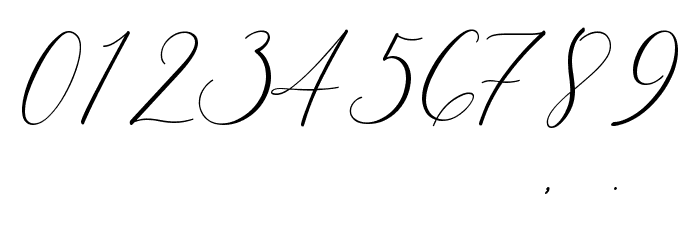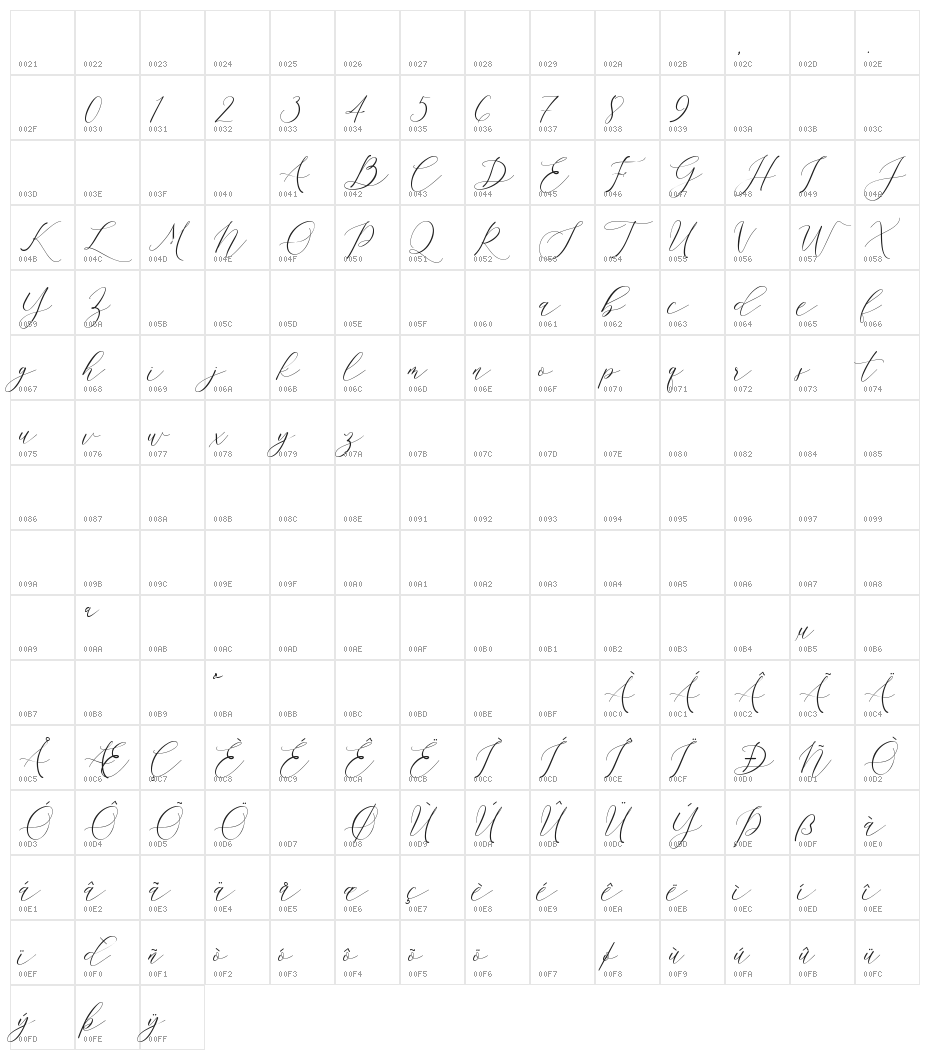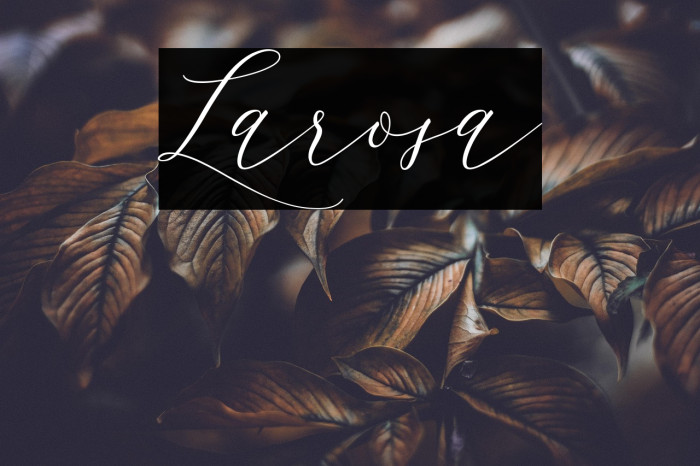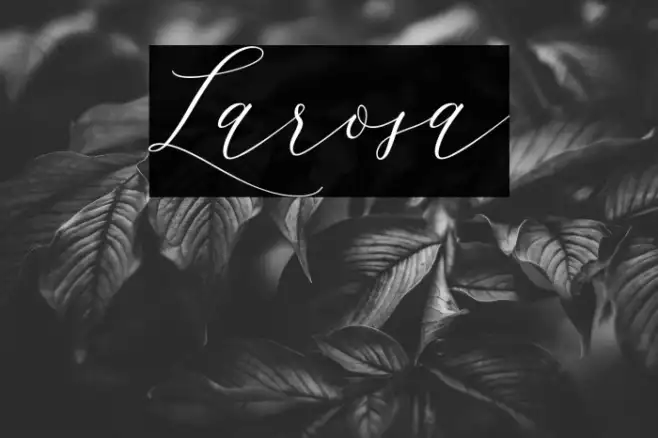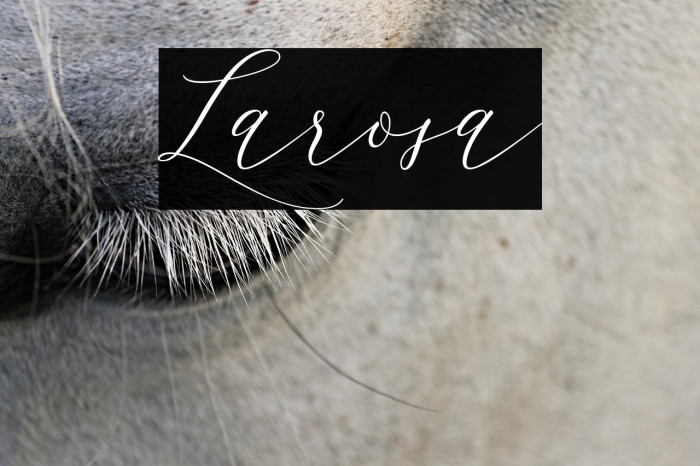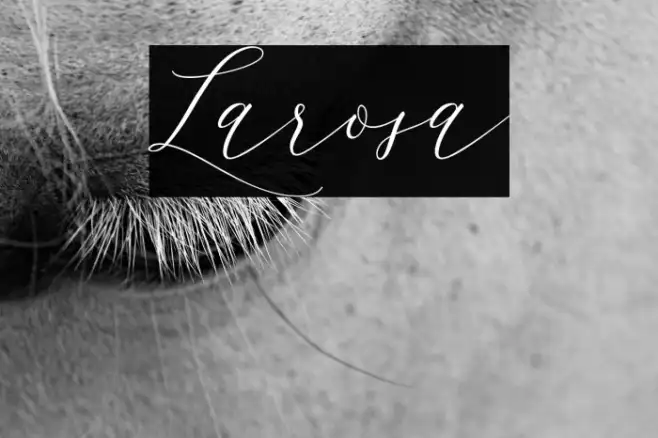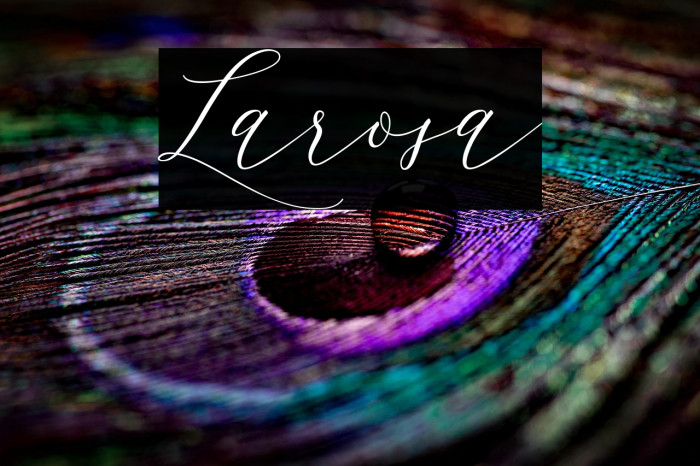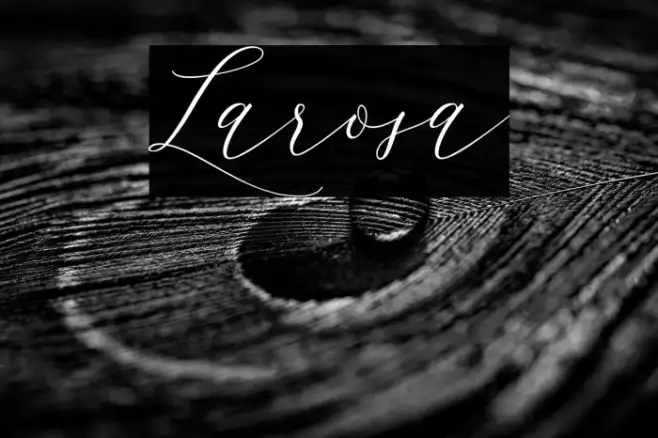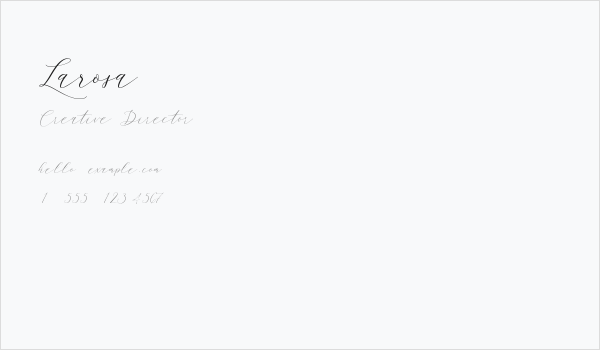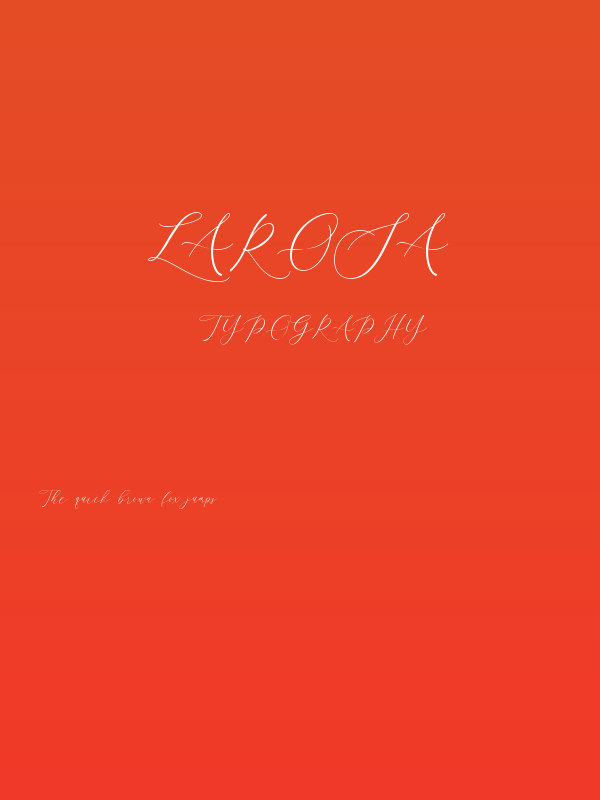
Larosa Font
This elegant script font features flowing, interconnected letters that exude a sense of sophistication and grace. The uppercase letters are characterized by their sweeping curves and delicate loops, while the lowercase letters maintain a fluid and harmonious style. The numerals are equally stylish, with a consistent stroke width that complements the overall aesthetic. The font's design is reminiscent of traditional calligraphy, making it ideal for formal invitations, branding, and decorative purposes. Its refined appearance is enhanced by the high contrast in stroke thickness, adding to its visual appeal.
| Use Case | Headlines, Invitations, Branding |
| Proposed Projects | Ideal for wedding invitations, luxury branding, elegant stationery, and decorative headlines. |